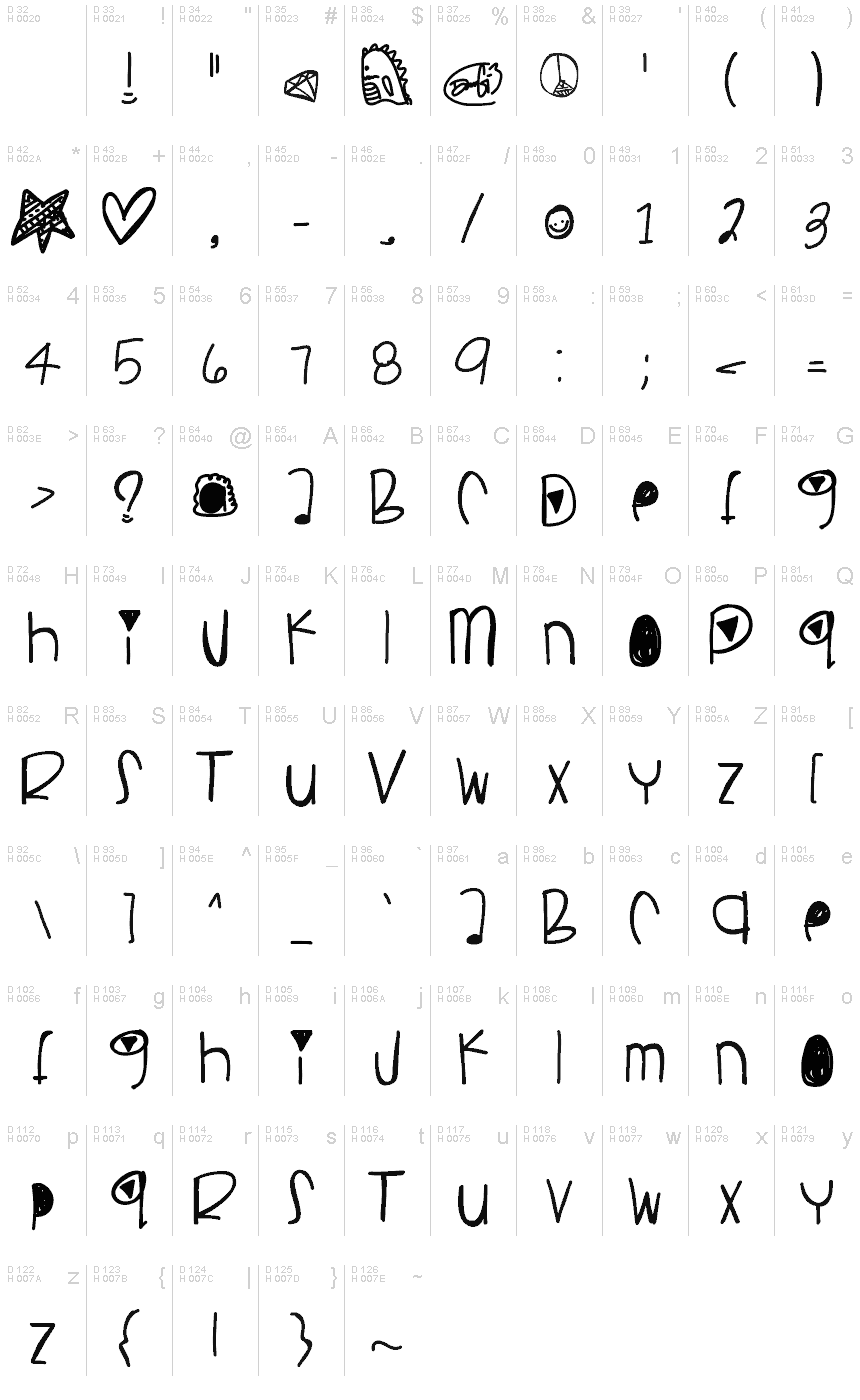
PancakesPlz
PancakesPlz is a delightfully whimsical font that exudes a playful, cartoon-inspired aesthetic. Designed by Des, this display font is a delightful blend of fluid, organic lines and bold, expressive strokes. The letters appear to have been handwritten with a touch of imperfection, lending the font an endearing, handcrafted quality. The irregular, varied letter shapes and exaggerated, rounded terminals add to the overall sense of charm and personality.
This font would be a perfect choice for children's books, greeting cards, and any design project seeking to convey a lighthearted, fun-loving vibe. Whether used for playful headlines, quirky branding, or whimsical illustrations, PancakesPlz is sure to capture the attention of audiences and bring a smile to their faces.